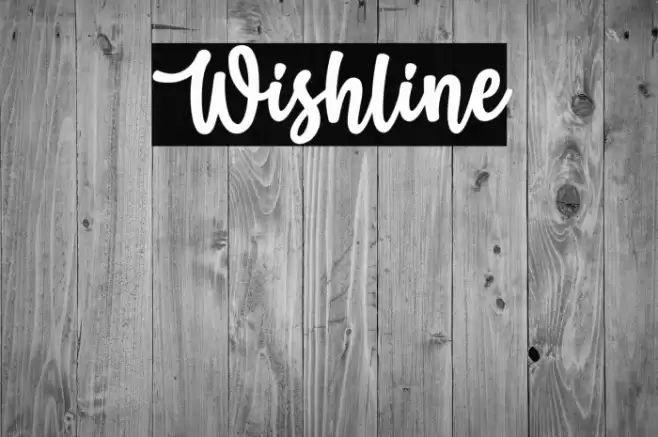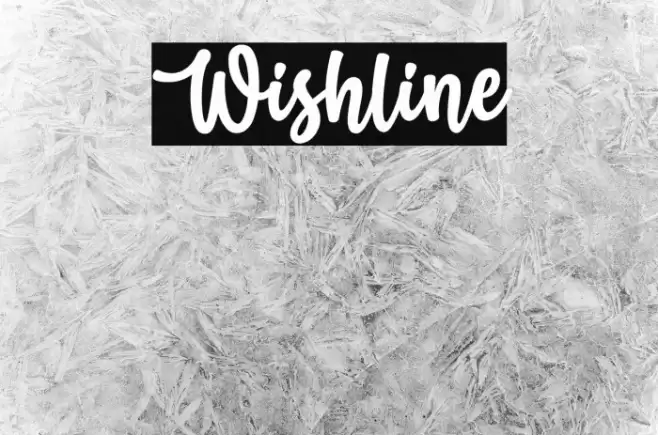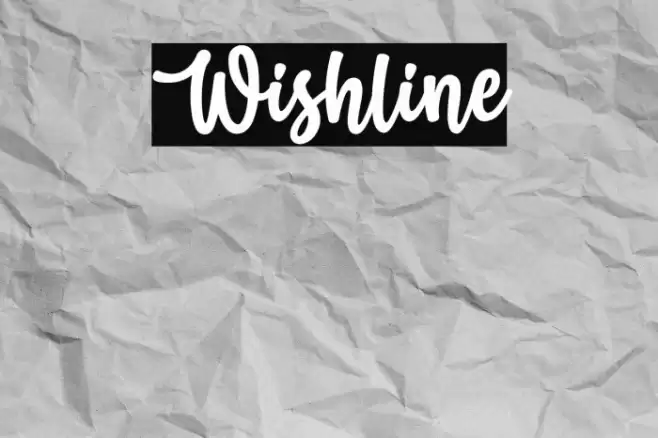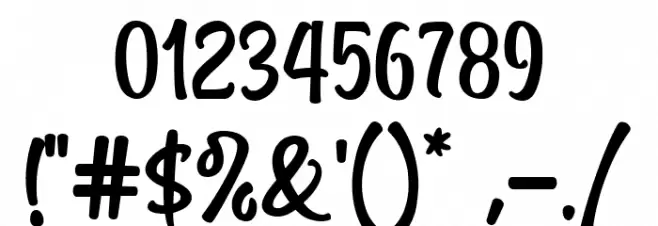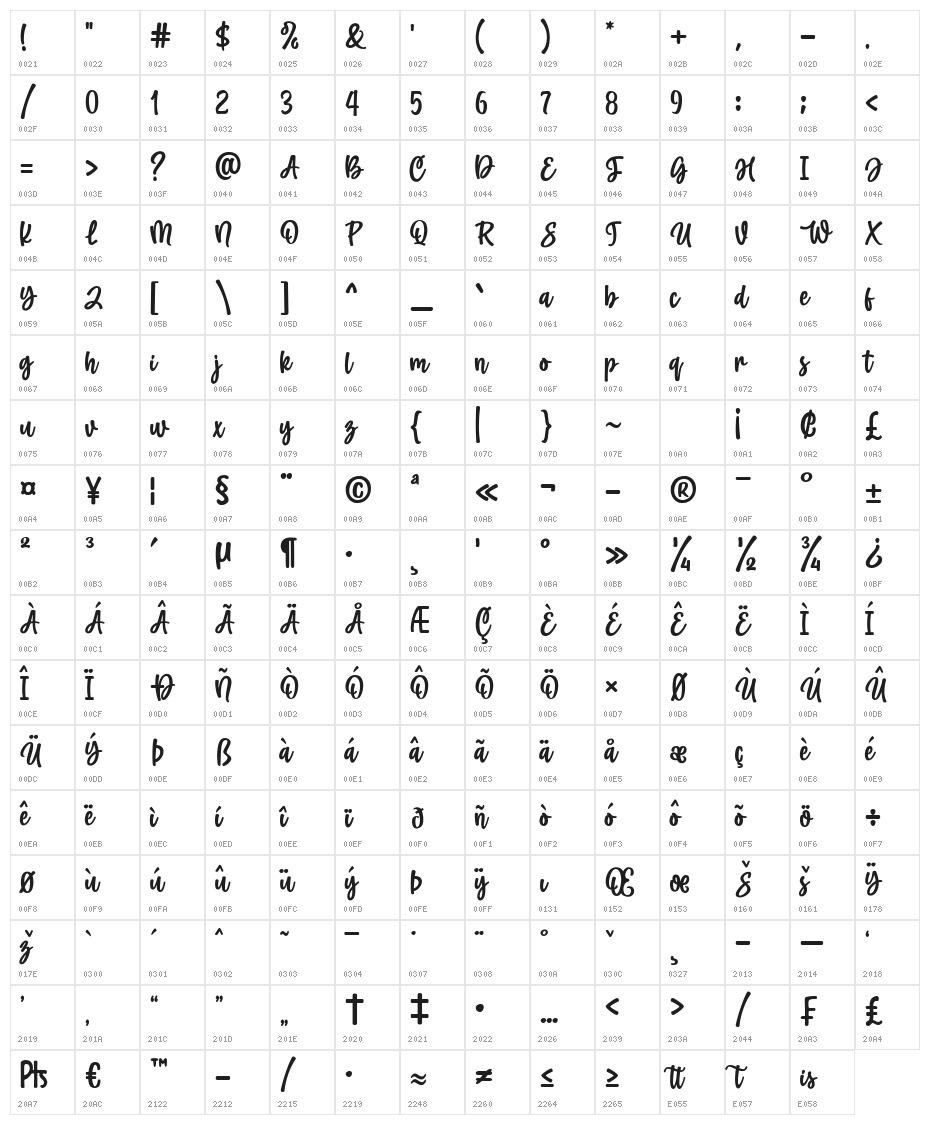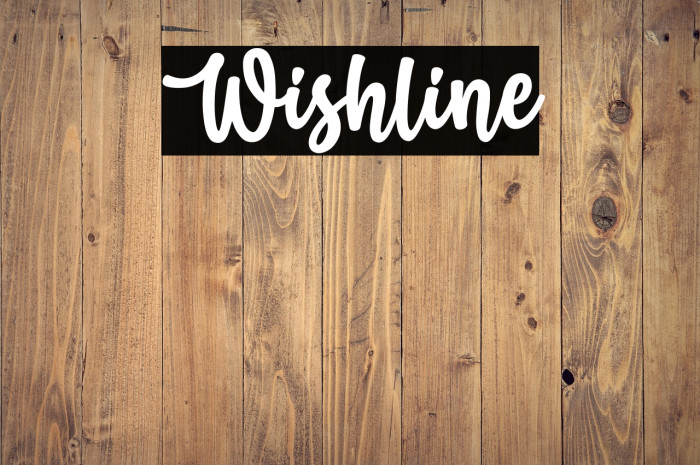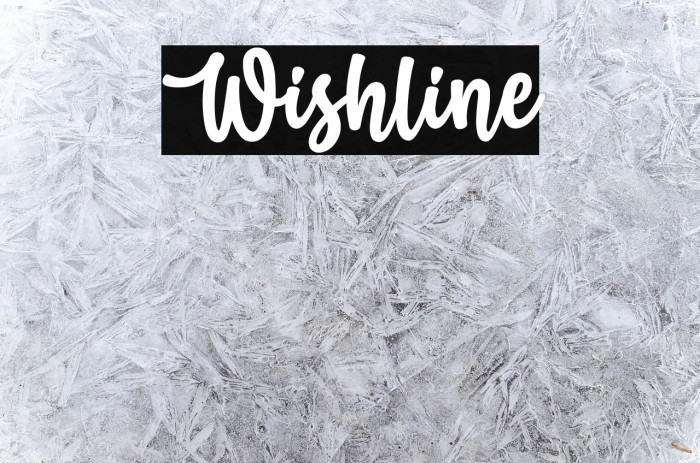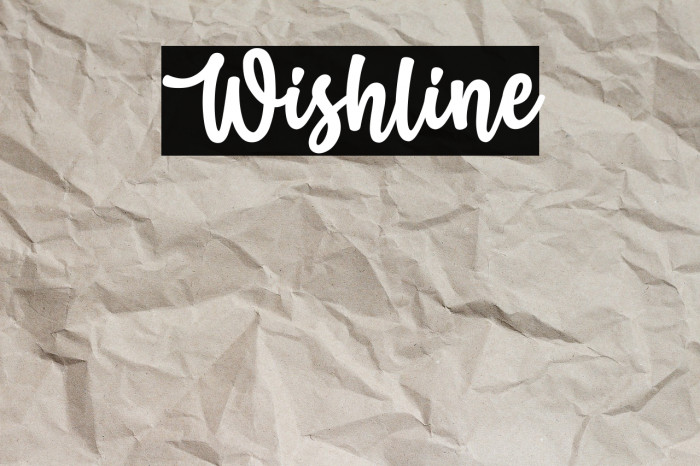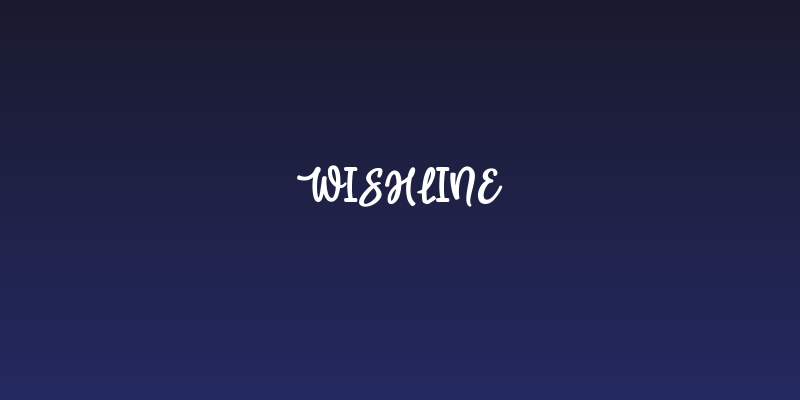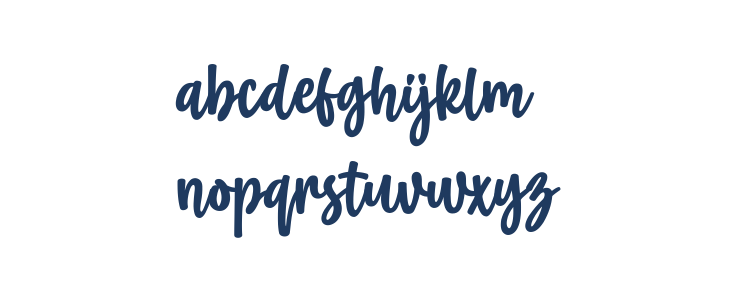
Wishline Font
Wishline Description
This font features a lively and flowing script style, characterized by its bold and smooth curves. Each letter connects seamlessly to the next, creating a harmonious and continuous flow that mimics natural handwriting. The uppercase letters are slightly more ornate, with playful loops and swirls, while the lowercase letters maintain a consistent and elegant rhythm. The numerals are clear and legible, maintaining the same playful yet sophisticated style. Special characters are designed to complement the overall aesthetic, ensuring versatility in various design contexts.
A bold, flowing script font with a lively and elegant style from Regular fonts.
- Proposed Projects: Ideal for wedding invitations, greeting cards, branding projects, and social media graphics.
- Use Case: Logos, Headlines, Invitations